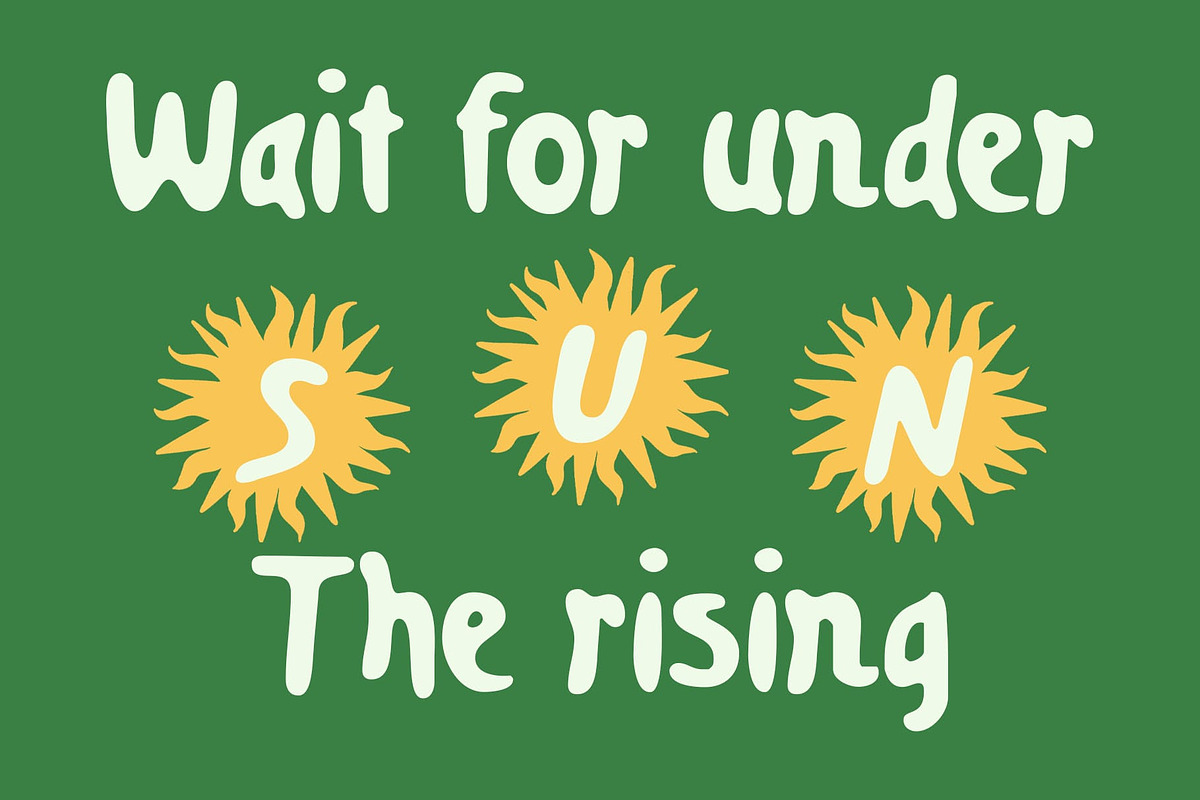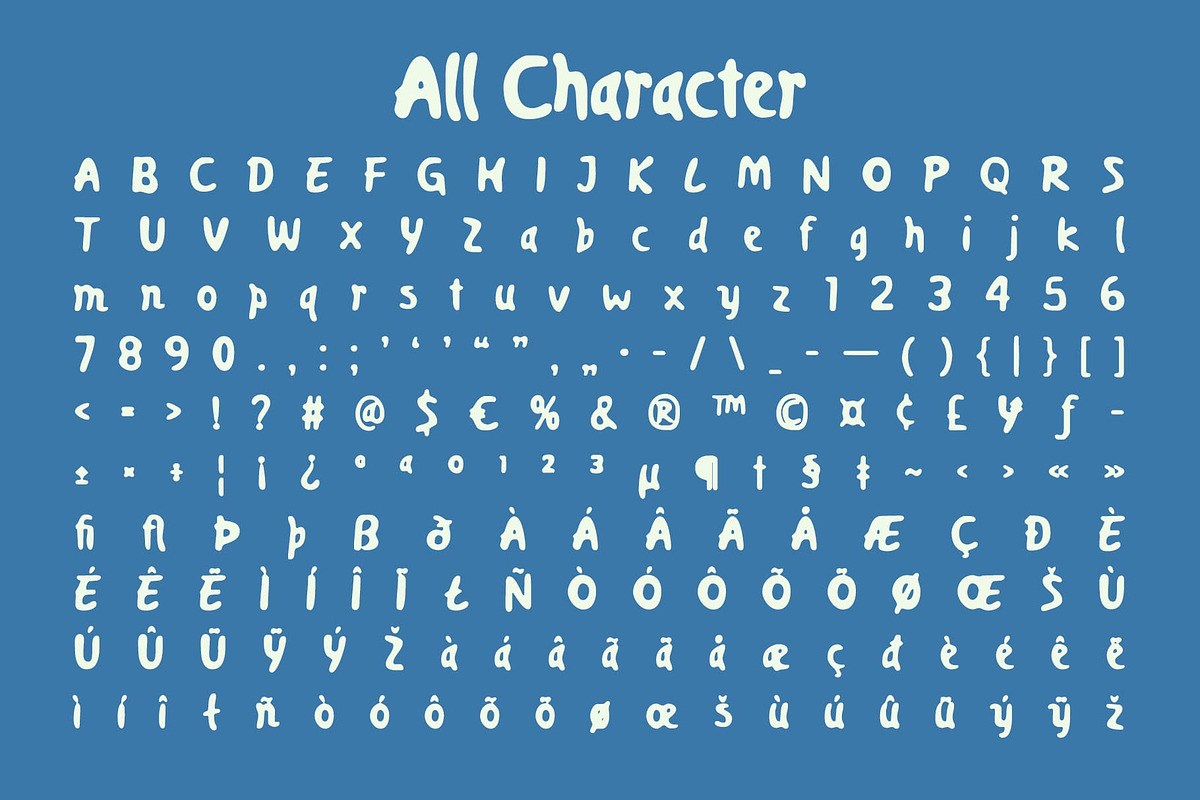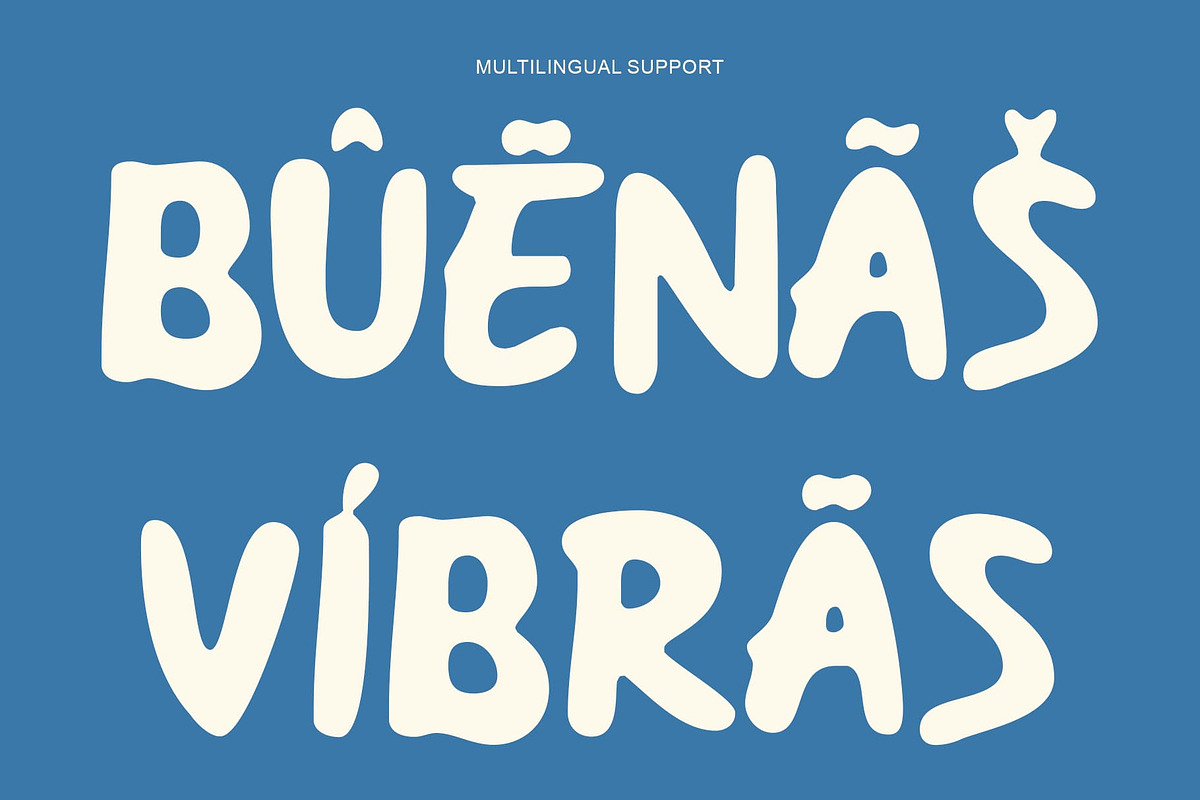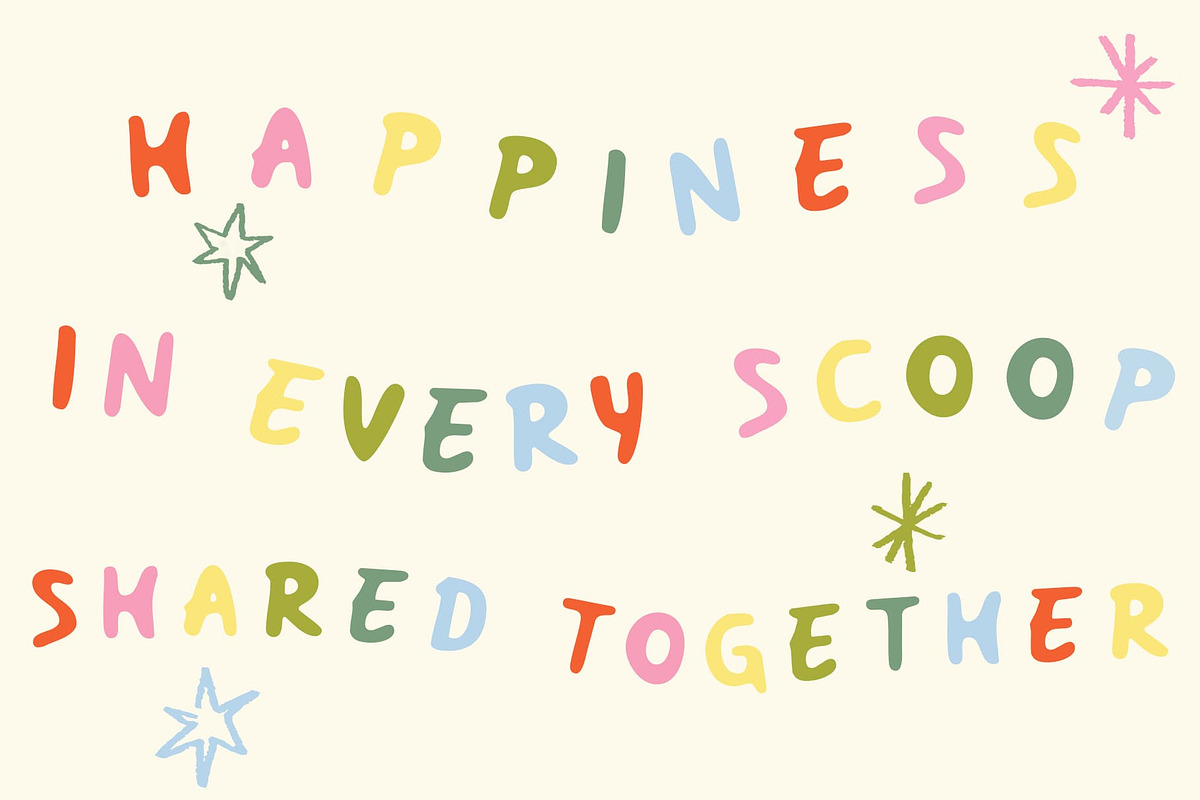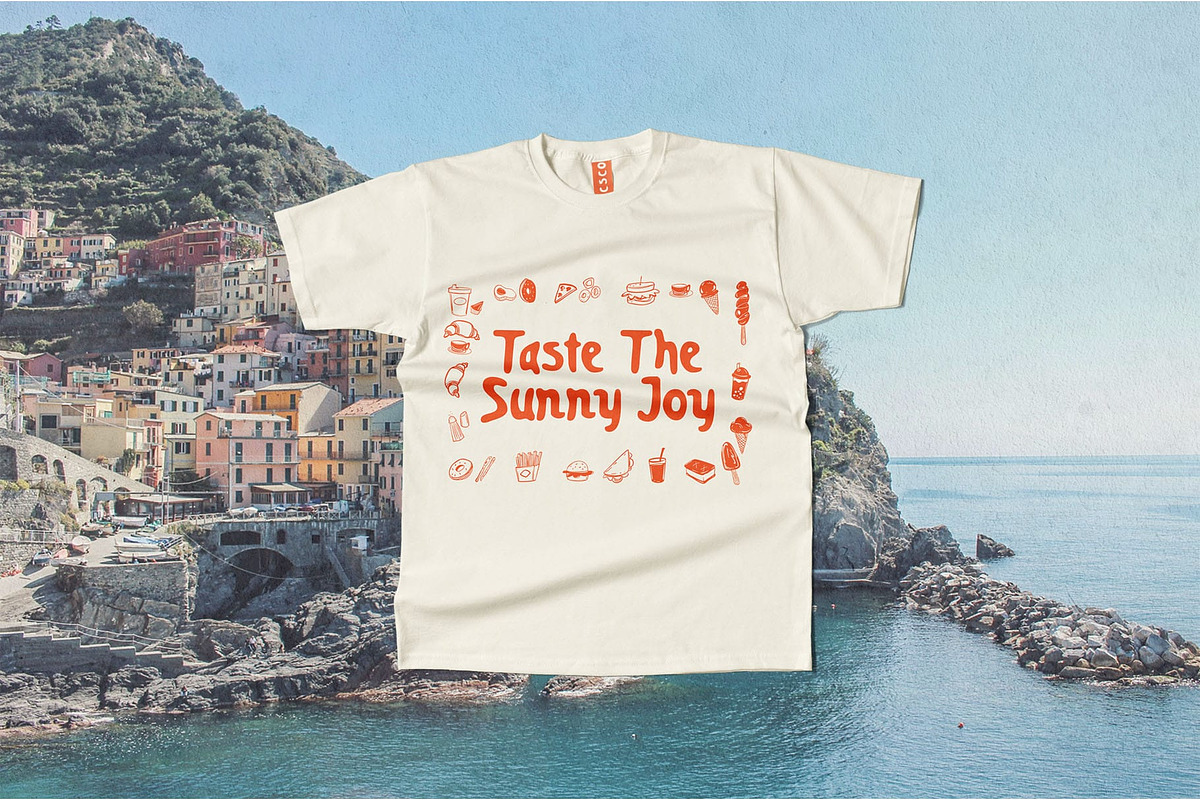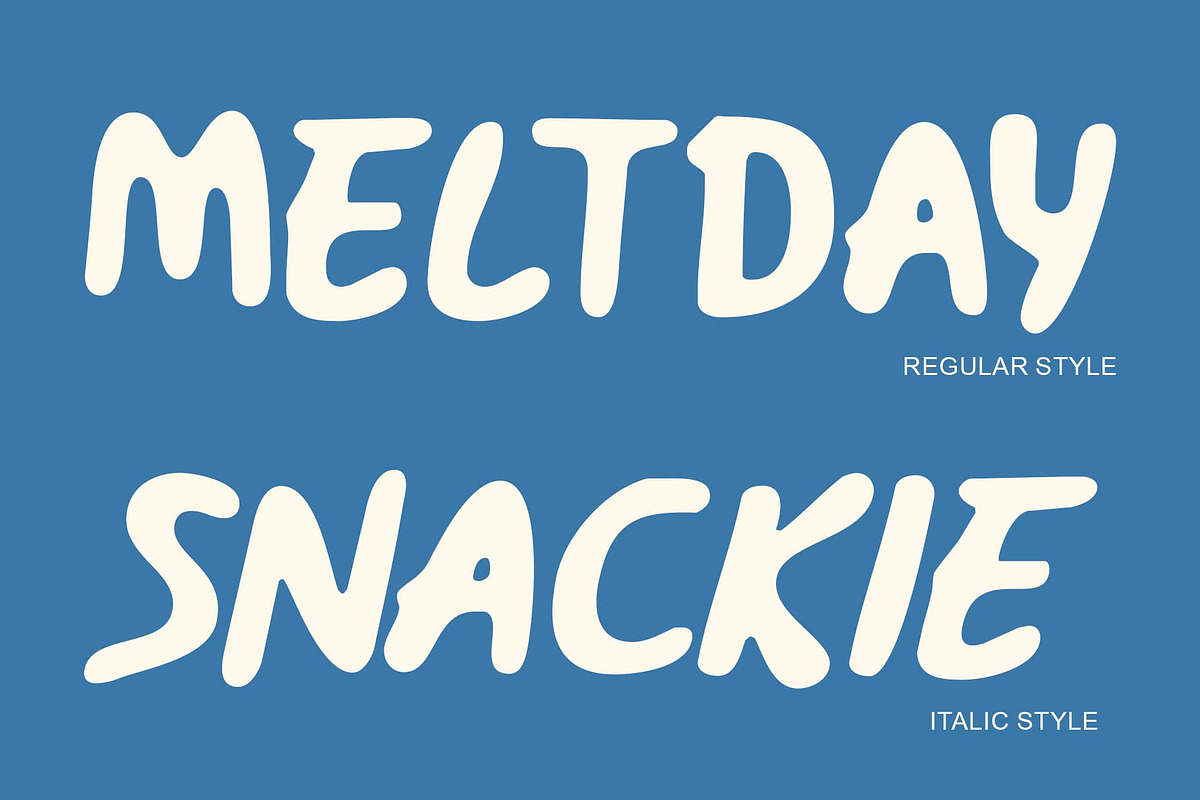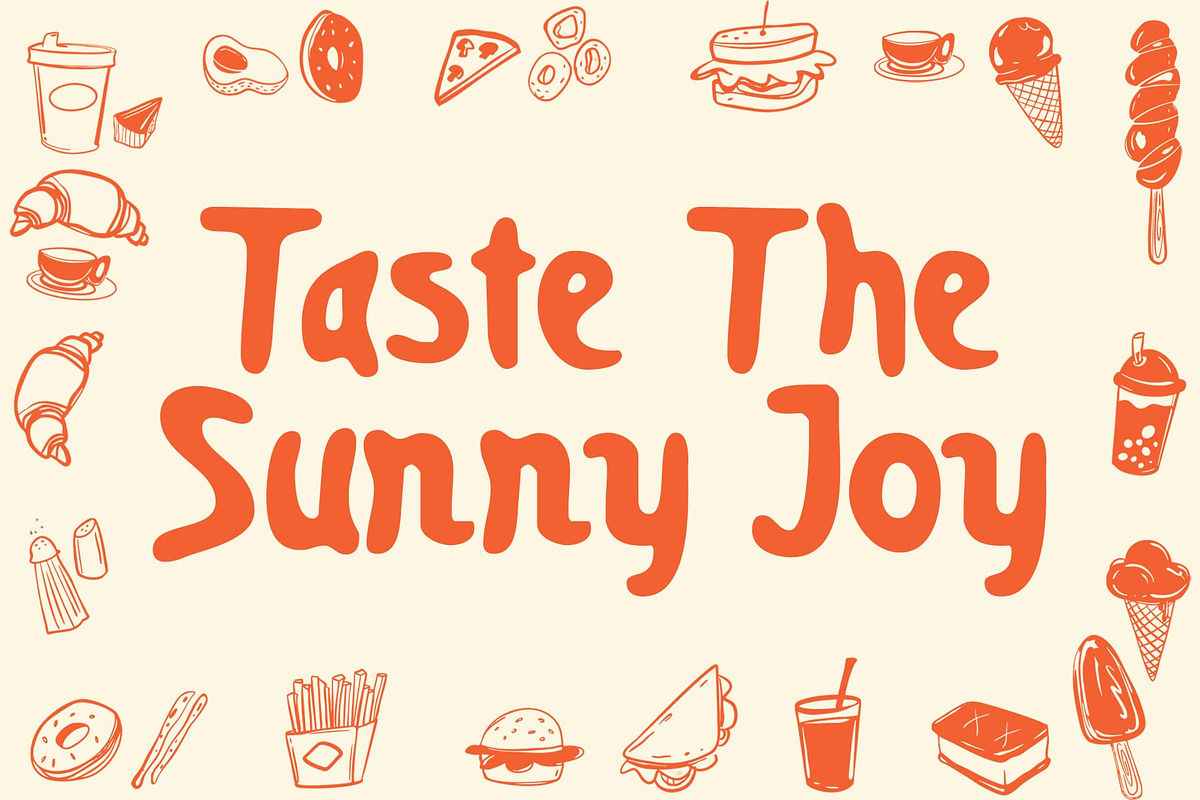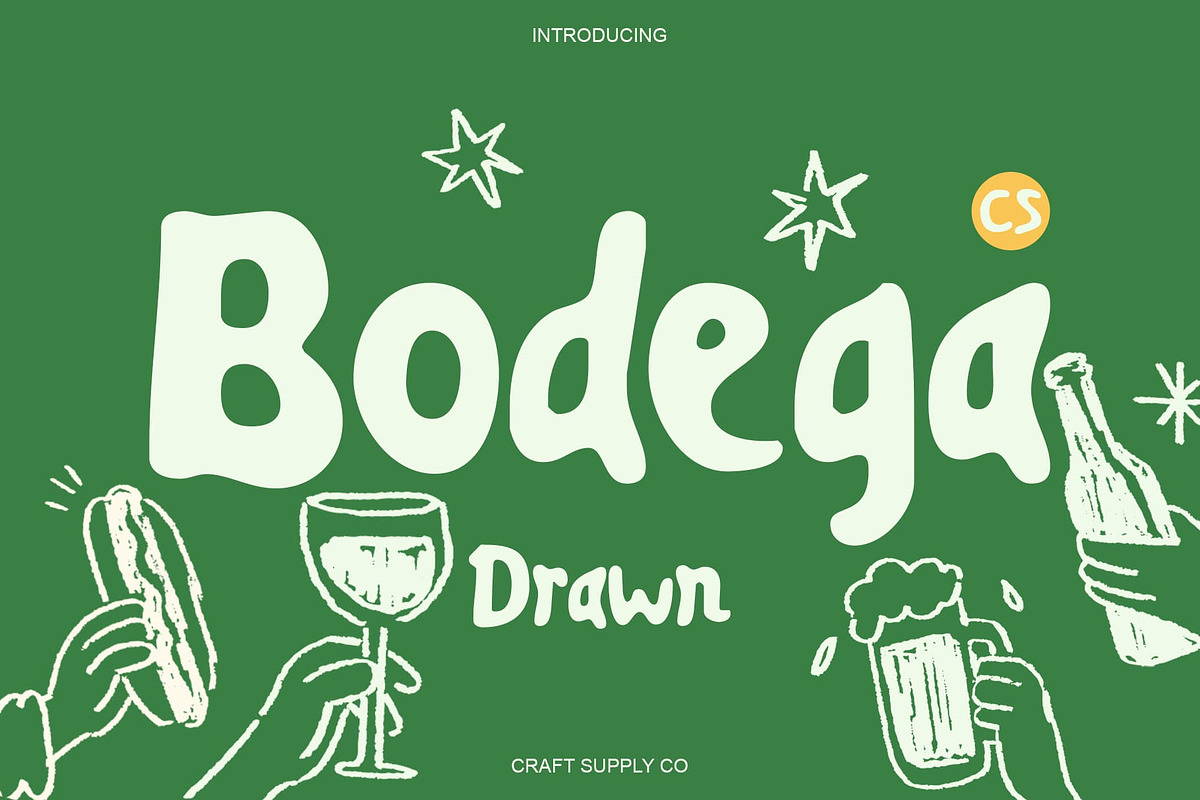
CS Bodega Drawn
CS Bodega Drawn – Bold Fun with a Hand-Drawn Spirit
Playful Font with Energetic Personality This is a fun and funky display font bursting with life and character. Its bold strokes and rounded shapes create a friendly, approachable look that instantly captures attention. Designed to radiate positivity and charm, this font is perfect for projects that celebrate creativity and youthful energy.
Hand-Drawn Effect for Relaxed Expression The drawn effect gives this font a relaxed, handcrafted feel that enhances its cheerful tone. Each letter carries a sense of spontaneity and warmth, adding a personal touch to your designs. This natural imperfection is what makes the font feel authentic, human, and full of creative flair.
Bold Shapes for Visual Impact With its thick, expressive forms, this font ensures strong readability and dynamic presence. The font’s confident weight allows it to stand out while maintaining a lighthearted vibe ideal for playful compositions that need to be both fun and clear.
Perfect for Youthful and Casual Designs From youth branding and cheerful greeting cards to casual posters and lifestyle graphics, this font brings joy and movement to any project. It’s a font that smiles radiating energy, friendliness, and creativity in every stroke, making your design feel effortlessly engaging and full of life.